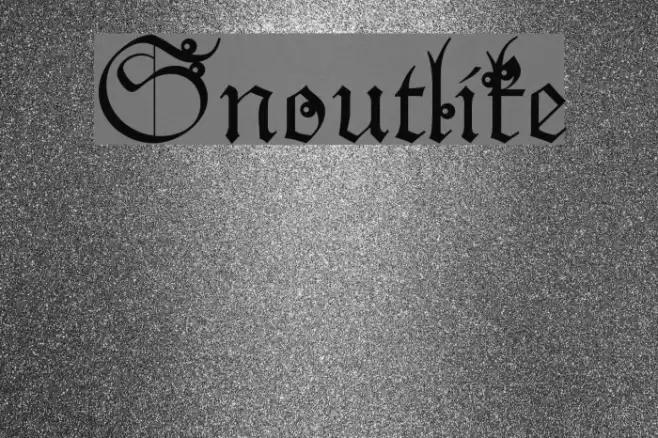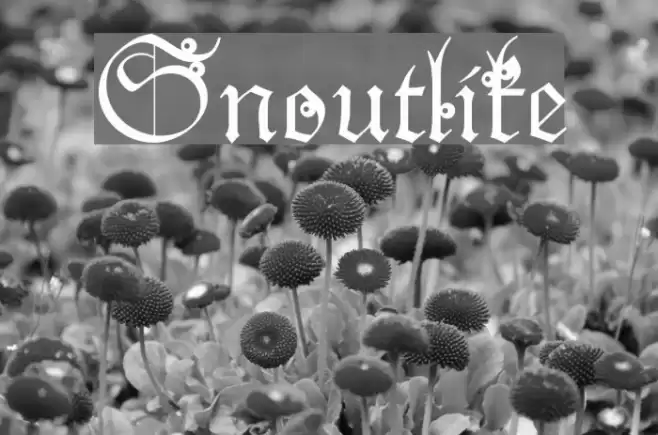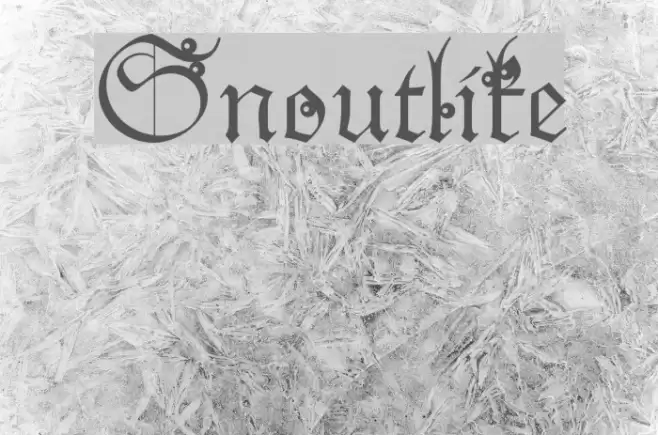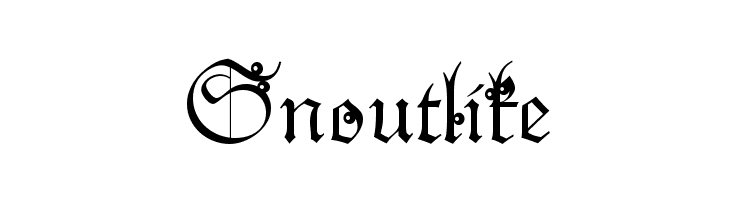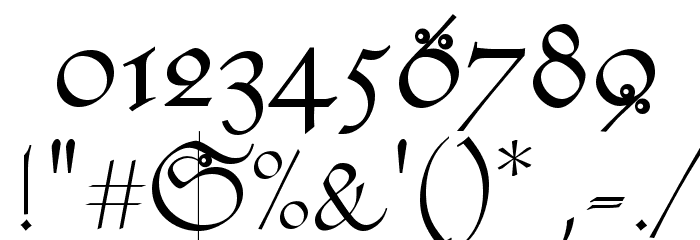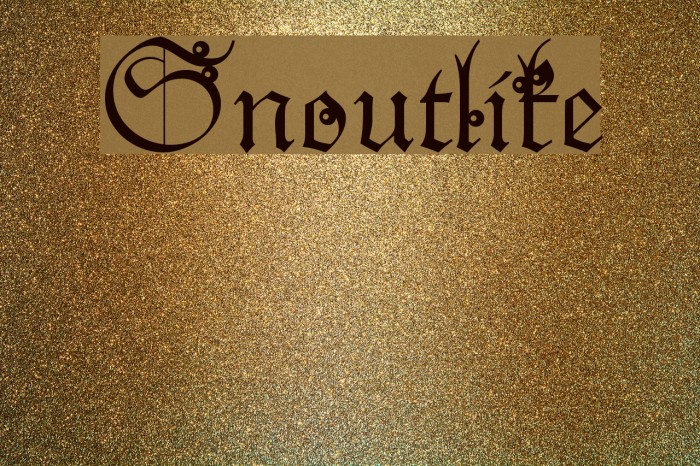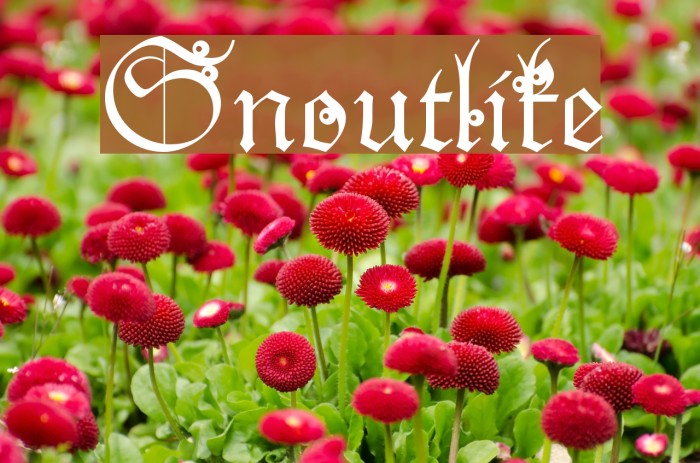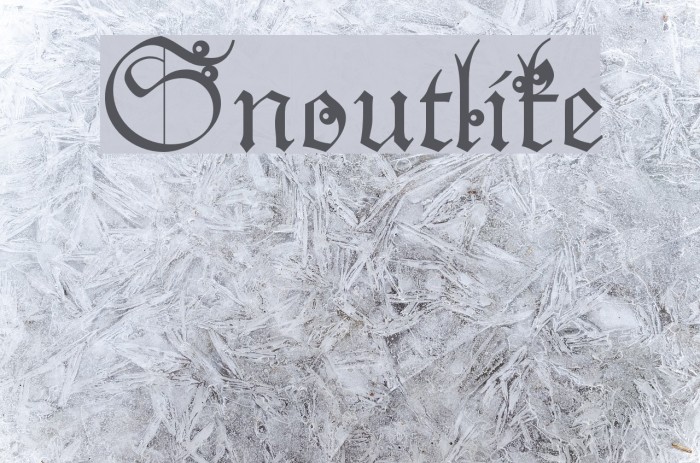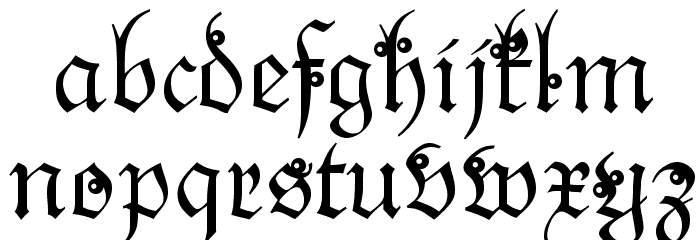
Snoutlike Font
Snoutlike Description
This font exhibits a classic blackletter style, characterized by its ornate and intricate design. The uppercase letters are adorned with decorative flourishes, giving them a regal and historical appearance. The lowercase letters maintain a similar level of detail, with sharp angles and pointed serifs that enhance the gothic aesthetic. The numerals are consistent with the overall style, featuring unique curves and embellishments. Special characters are equally ornate, adding to the font's cohesive look. This font is ideal for projects that require a touch of elegance and tradition.
An ornate blackletter font with intricate details and a gothic aesthetic from Uncategorized fonts.
- Proposed Projects: Suitable for historical documents, wedding invitations, book covers, and branding that requires a classic touch.
- Overall Style: Vintage
- Use Case: Logos, Headlines, Decorative text